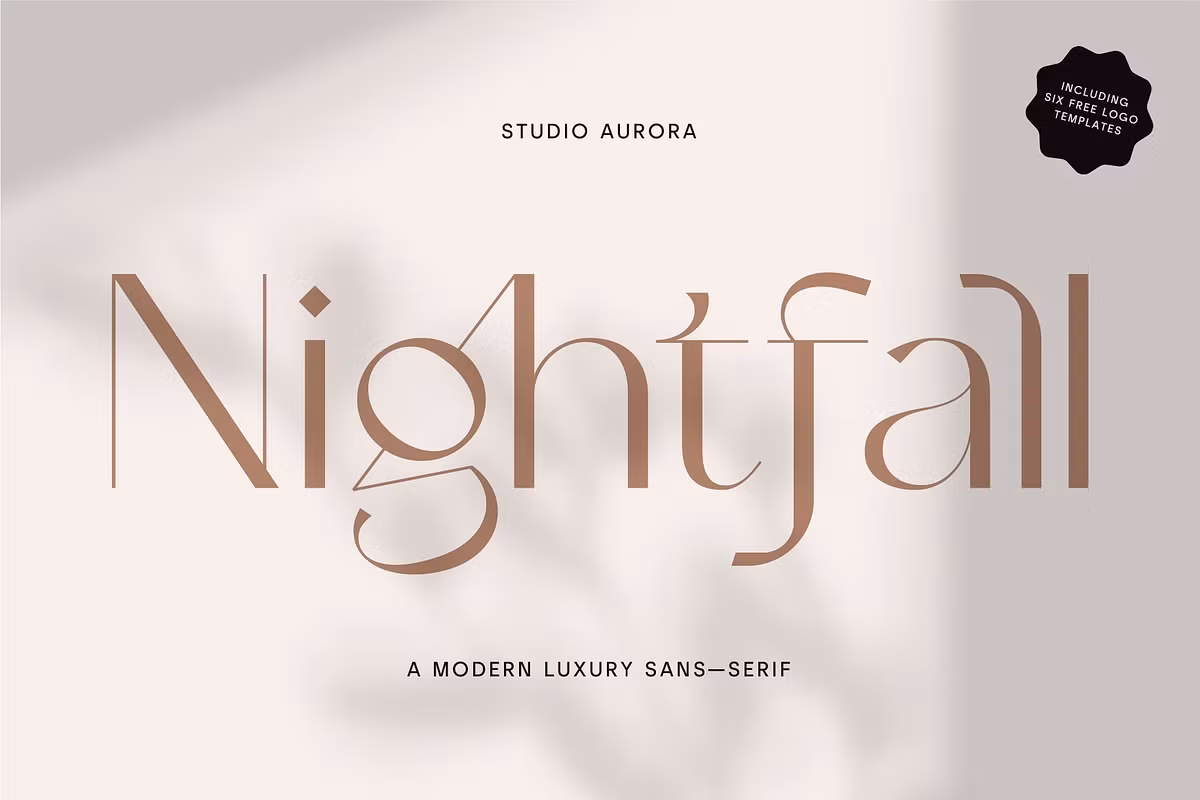
Nightfall - Modern Luxury Sans-Serif Free Download
Nightfall - Modern Luxury Sans-Serif Font Free Download
Sleek, sophisticated, and contemporary, Nightfall - Modern Luxury Sans-Serif Font Free Download is a refined typeface designed to add elegance and professionalism to your design projects. Perfect for luxury branding, high-end editorial layouts, website design, and premium packaging, this font offers a modern aesthetic that radiates style and class.
With clean lines, balanced proportions, and a minimalist design, Nightfall makes a statement without being overwhelming. Whether you’re designing a luxury brand logo, creating editorial designs, or crafting an upscale web interface, this font brings a sense of modernity and luxury to your typography.